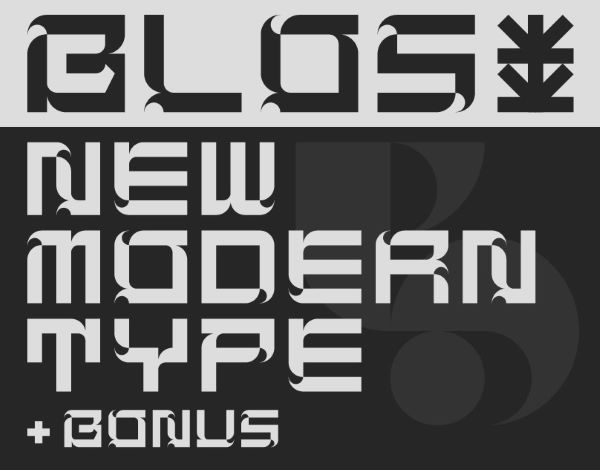
BLOS Font
BLOS by Victor Kmit is a free experimental block font built from geometric shapes — its letterforms constructed from modular rectangular and circular forms in a way that feels simultaneously architectural and futuristic. Supporting both Latin and Cyrillic scripts. The release includes both the BLOSTYPE font and a BLOSSHAPE vector shapes set, both available free with a standard commercial license.
BLOS is a visually inventive and technically generous addition to our free font collection, created by Russia-based designer Victor Kmit — a type creator whose experimental approach to block-based letterform construction yields something that feels genuinely new rather than derivative. Its commercial license and companion shapes set make it one of the more complete freebies in this collection. Browse our full library of free fonts and discover more distinctive typefaces crafted by independent designers around the world.